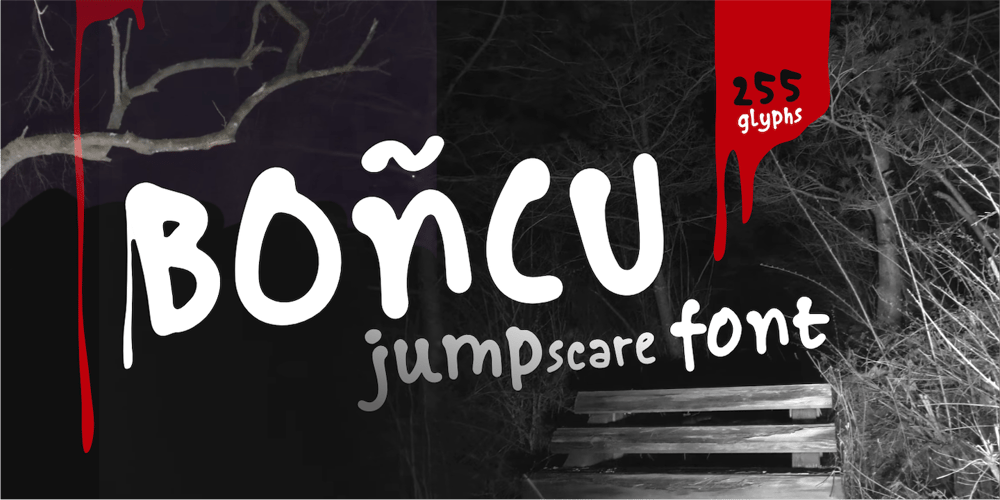
Boncu Sketches Font Family was designed by Wahyu Eka Prasetya, Afiat Sukmaraga and published by Hati. Boncu Sketches contains 1 styles and family package options. Boncu. This horror font blends a sinister brush touch with natural ink textures, creating an eerie, unsettling vibe. Perfect for spine-chilling designs, it brings a raw, hand-crafted feel that evokes fear and suspense.